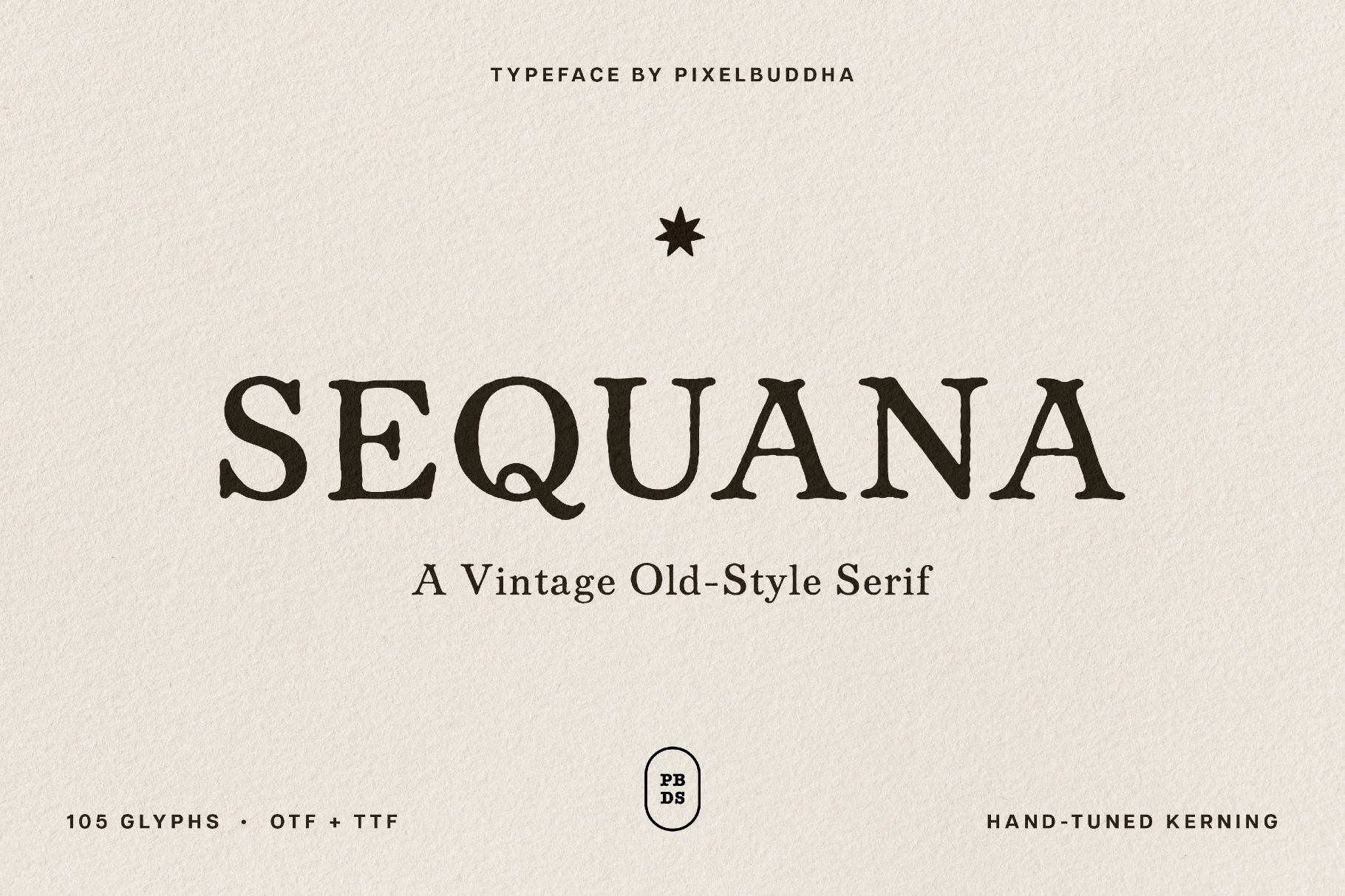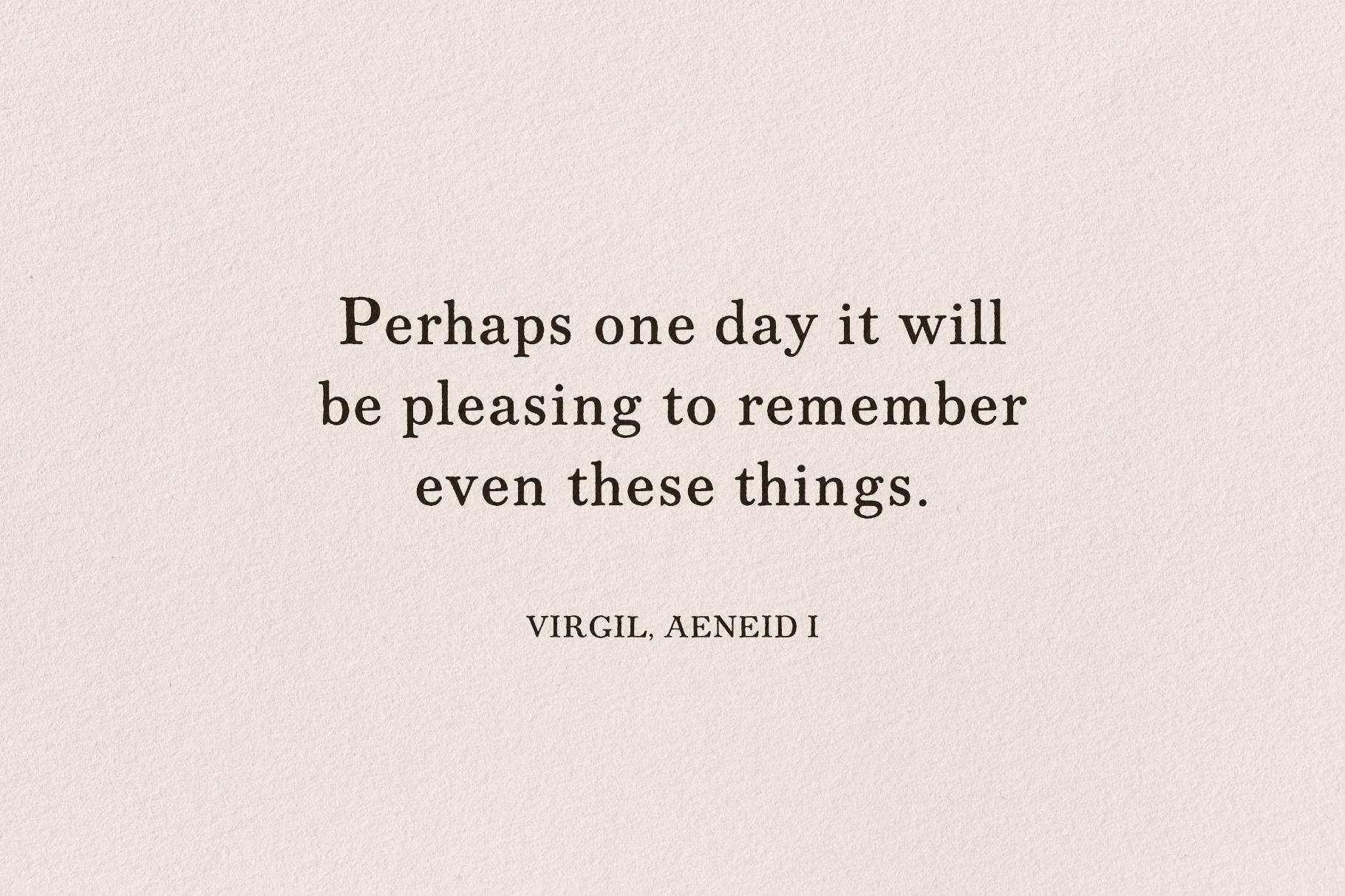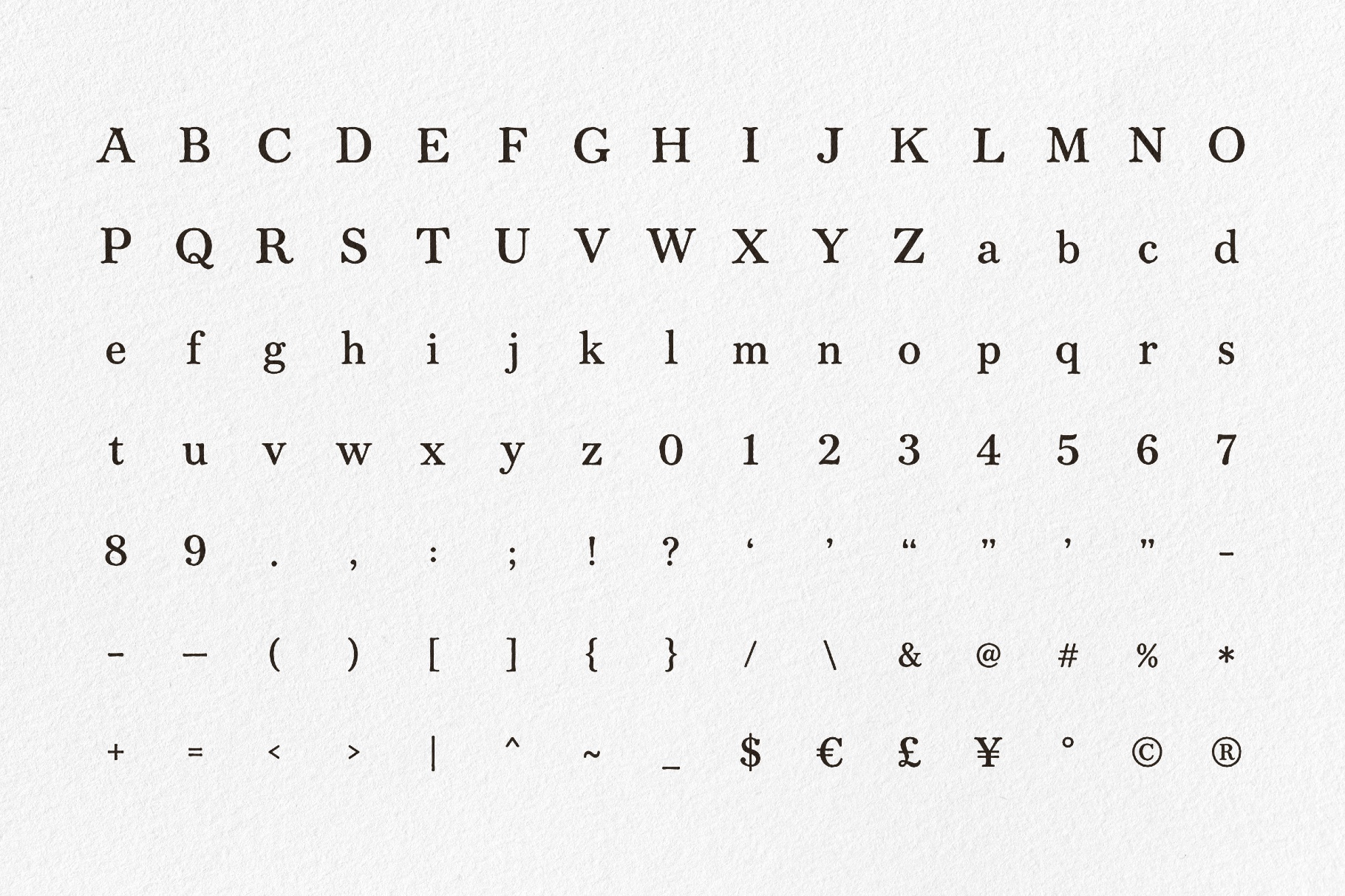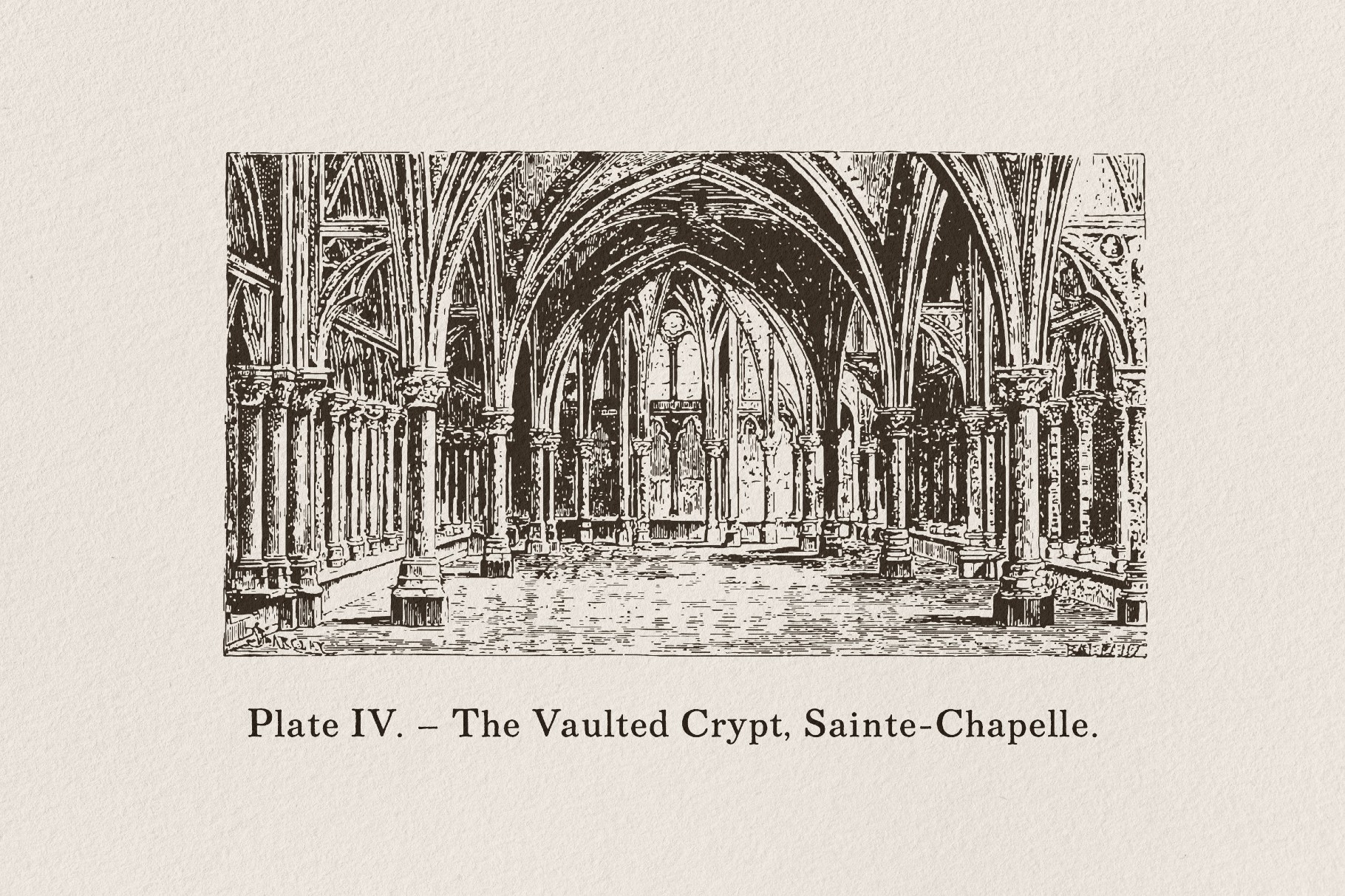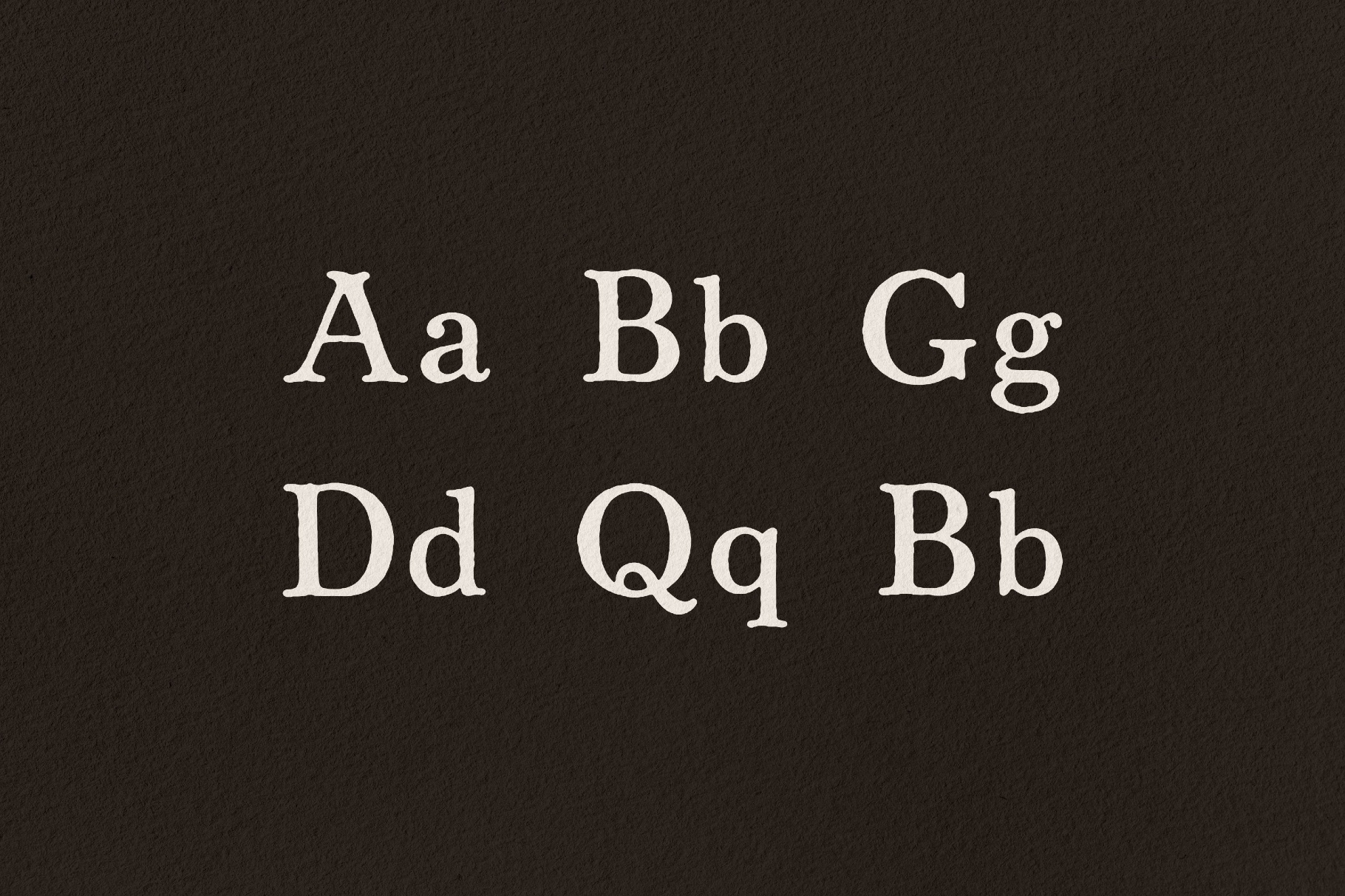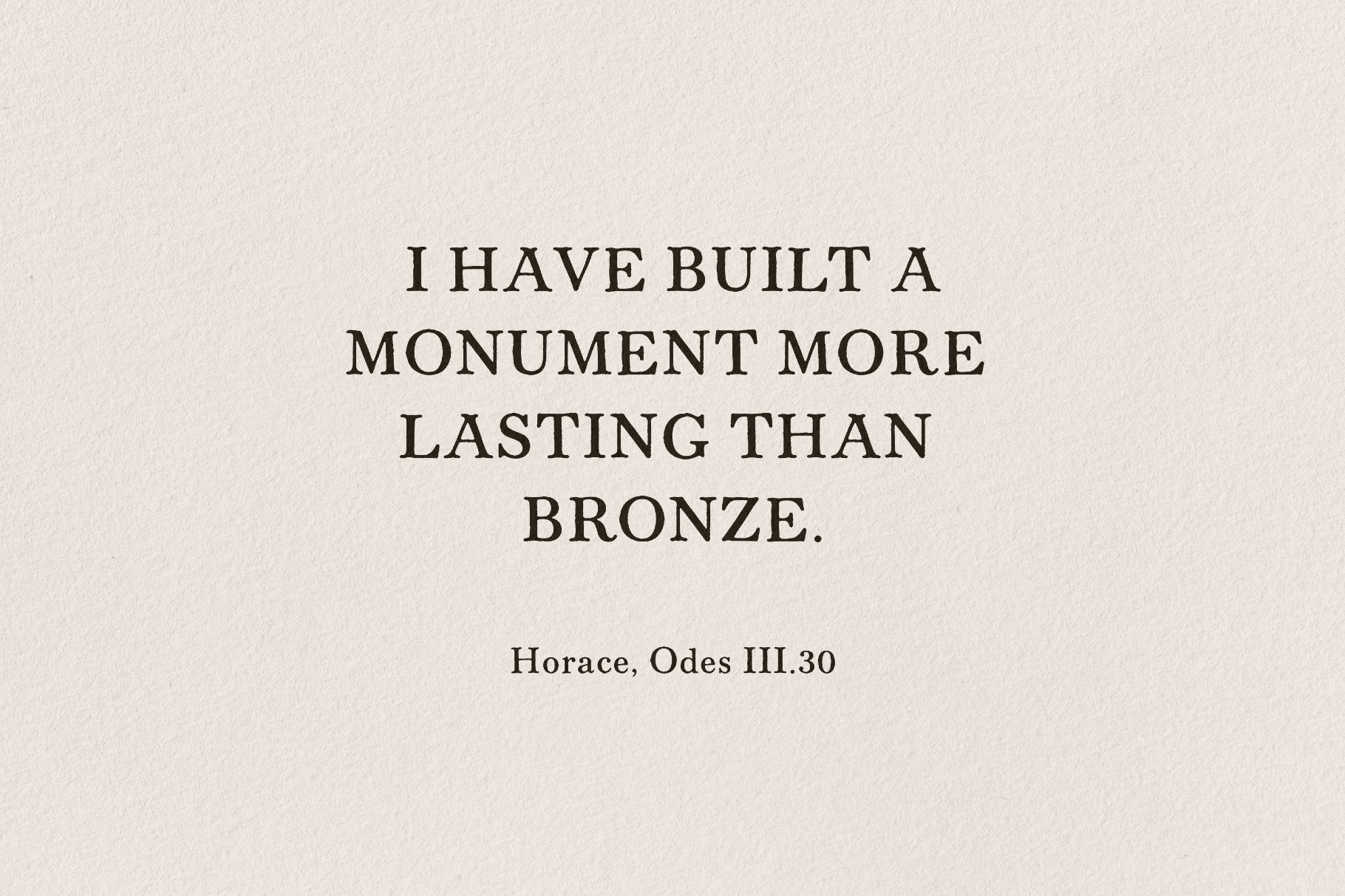
Sequana - A Vintage Old-Style Serif
Sequana takes its cue from early printed books and antiquarian title pages. It's a vintage old-style serif with humanist proportions, gently bracketed serifs, and the slight irregularity of letters cut by hand. The contrast is moderate, the looped Q tail and open bowls give it warmth, and a faint ink-bloom roughness keeps it off the sterile end of the spectrum.
The font sets cleanly at small sizes and gains presence as it grows, so one weight covers a chapter opener and the text beneath it. Use it for book and journal covers, masthead logotypes, poetry and editorial layouts, wine and spirits labels, restaurant menus, certificate and invitation typography, museum and exhibition graphics, and heritage branding.
• uppercase & lowercase (A–Z, a–z);
• numerals, punctuation & symbols;
• matched quotation marks;
• currency & reference marks ($ € £ ¥ © ®);
• hand-tuned kerning with even spacing;
• 105 glyphs total.